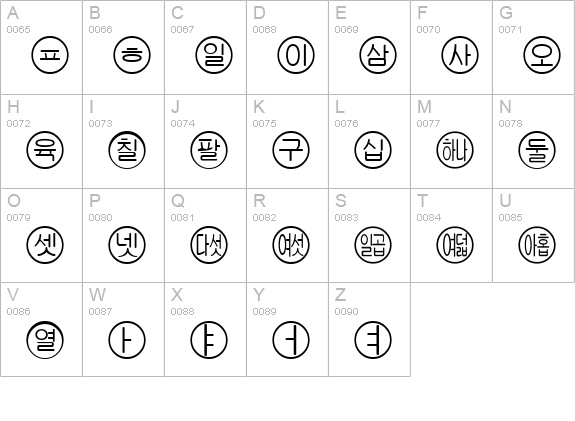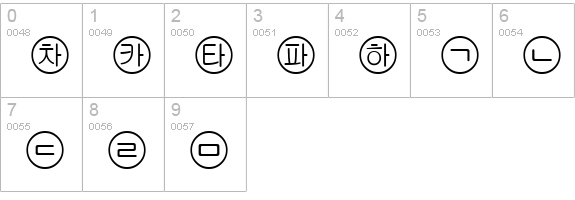
Bullets 5(Korean) Font Details
Bullets 5(Korean) font is a beautifully crafted typeface that combines elegance with a touch of whimsy. This unique font features intricate details and a modern aesthetic that is sure to make your designs stand out. Whether you're creating a poster, logo, or website, Bullets 5(Korean) font will add a touch of sophistication to your project. And the best part? This stunning font is available for free download at FontsMarket.com! Simply head over to the website and start using Bullets 5(Korean) font in your designs today. Don't miss out on this opportunity to enhance your creative projects with this amazing typeface.